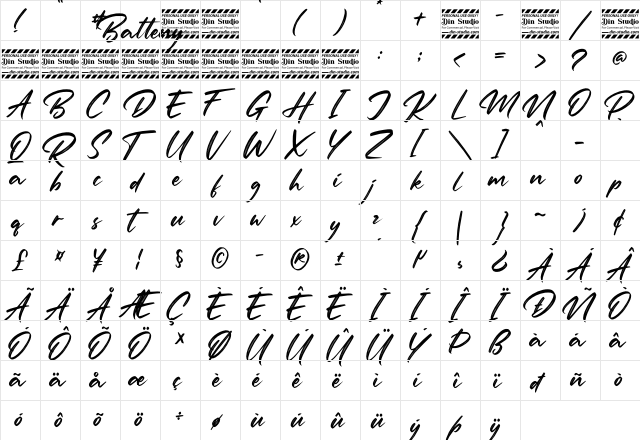
Batteny Personal Use Regular
| Designer | Donis Miftahudin |
Design Context for Batteny Personal Use Typeface
Batteny Personal Use is a composed and adaptable typeface that performs quietly and consistently across a wide range of design contexts.